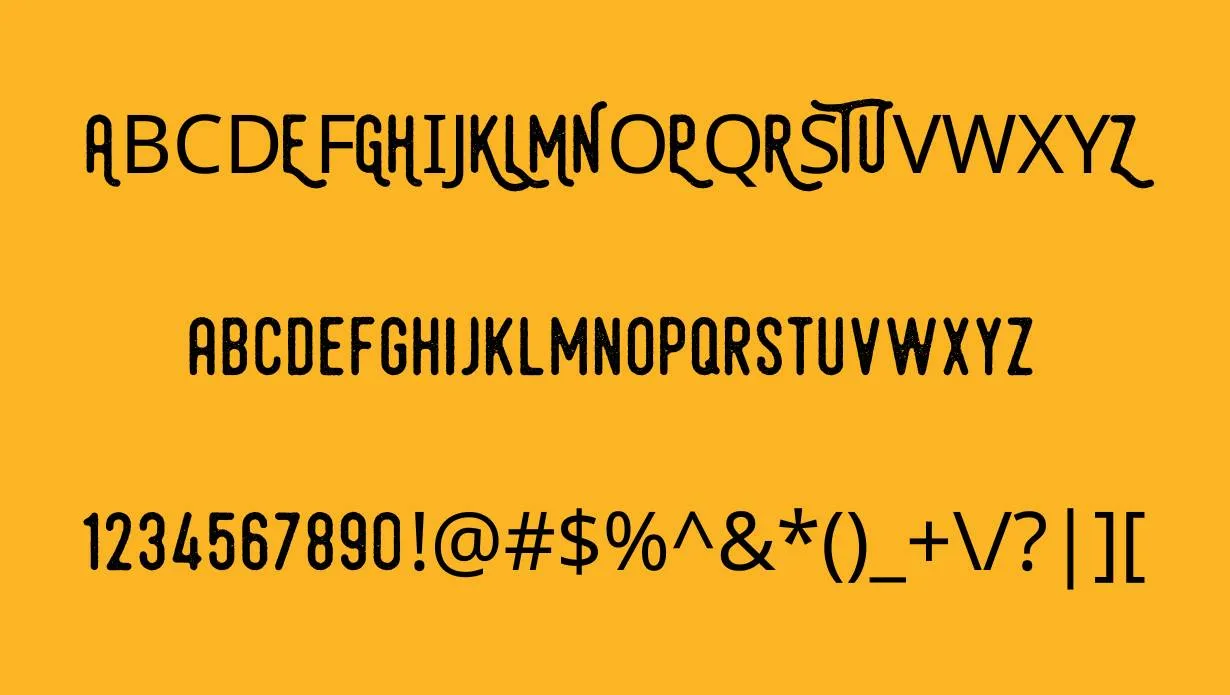
Hamurz Font is a clean and modern typeface with a strong and bold appearance.
It’s often chosen for formal invitations, editorial design, and branding, where a touch of tradition and elegance is desired.
This font’s well-proportioned letterforms and robust style convey a sense of sophistication and prestige.
Hamurz Font Family